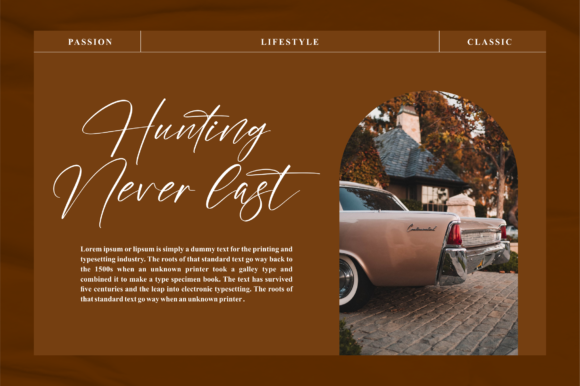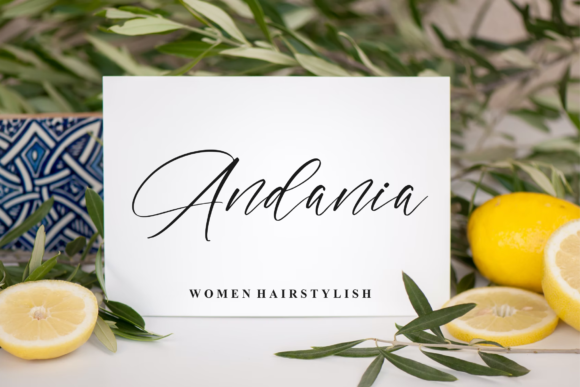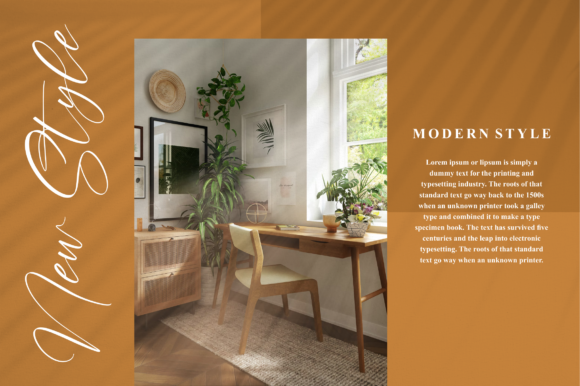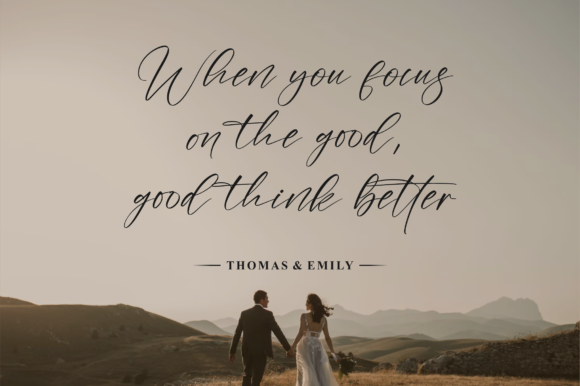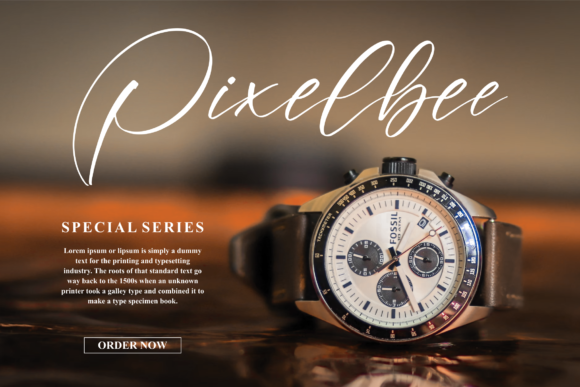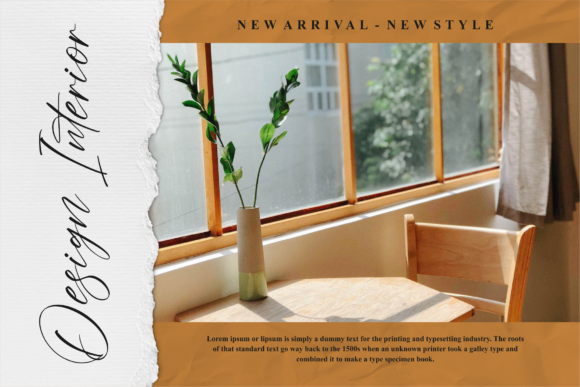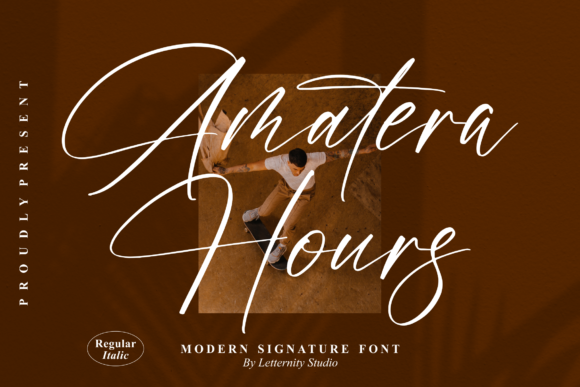
The Amatera Hours Font: A Designer’s New Best Friend
I’ll never forget the time I was working on a branding project for a luxury homeware client. I had spent hours pouring over design concepts, but something was missing. The perfect font eluded me, until I stumbled upon Amatera Hours. This beautiful script font was love at first sight! 💕
Amatera Hours is a stunning addition to any design project, from logos and branding to homeware designs, product packaging, and more. Its elegant, cursive lines add a touch of sophistication and whimsy, making it perfect for a wide range of creative endeavors.
- ✨ Elegant, flowing lines that add a touch of luxury to any design
- ✅ Highly versatile: suitable for logos, branding, packaging, and more
- 💫 Beautifully crafted: attention to detail is evident in every glyph
- 🌈 Extensive character set: perfect for multilingual designs
- ⚠️ Some users may find the font too ornate for certain projects
- 🤔 Limited suitability for body text: best used for headlines and titles
The Story Behind Amatera Hours: Designer Inspiration
Amatera Hours was crafted with love and attention to detail by a talented type designer. Inspired by the beauty of handwritten scripts, the designer aimed to create a font that would add a touch of elegance and whimsy to any design. With its extensive character set and advanced OpenType features, Amatera Hours is the perfect choice for designers seeking a versatile and beautiful script font.
| Font Name | Amatera Hours Font |
| Author | Letternity |
Q: What type of projects is Amatera Hours suitable for?
A: Amatera Hours is perfect for a wide range of projects, including logos, branding, homeware designs, product packaging, mugs, quotes, posters, shopping bags, t-shirts, book covers, and more.
Q: Is Amatera Hours easy to read?
A: Amatera Hours is a script font, and as such, it may be less suitable for body text. However, it’s perfect for headlines and titles, where visual impact is key.